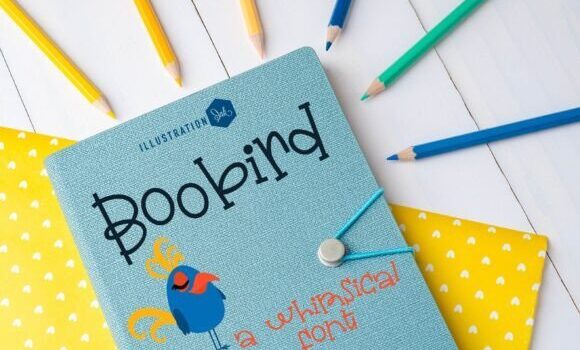
boobird
Boobird Font – Free Download Introduction to Boobird Font This hand-crafted font is a whimsical serif with a bouncy baseline. 📸 Preview Gallery 6 images 📌 Product Name Boobird Font 👤 Author Illustration Ink 📂 Category Explore ⬇️ Download Boobird